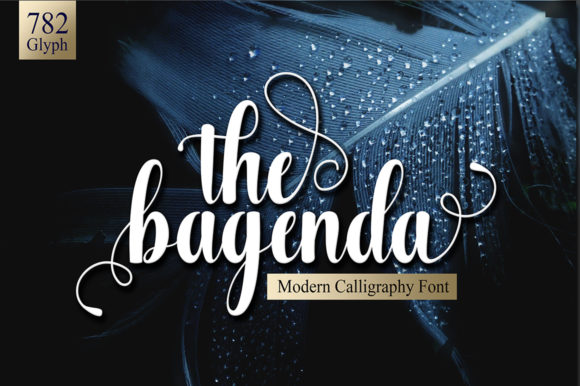
Introducing The Bagenda Font: A Journey Through Enchanting Script Calligraphy
Immerse yourself in the captivating world of The Bagenda Font, a breathtaking script creation by Imun Studio. This enchanting font exudes elegance and charm, inviting you to embark on a creative voyage where your words dance with grace and allure.
Crafted with meticulous precision, The Bagenda Font boasts a captivating blend of traditional calligraphy and modern aesthetics. Its unique forms and natural writing style evoke a sense of timeless sophistication, making it the perfect choice for a wide range of design projects.
Picture your designs adorned with the flowing strokes of The Bagenda Font. Wedding invitations shimmer with an ethereal glow, carrying your vows in a symphony of handwritten beauty. Logos and branding materials radiate a touch of timeless elegance, leaving an unforgettable impression on your audience. Social media posts and marketing campaigns ignite with an irresistible charm, attracting followers with their captivating visual appeal.
But The Bagenda Font is more than just a beautiful typeface. It's a powerful tool that unlocks your creativity and empowers you to express yourself with unparalleled flair. With its versatility and endless possibilities, The Bagenda Font becomes an extension of your imagination, allowing you to craft captivating content that resonates with your target audience.
Whether you're a seasoned designer or just starting your creative journey, The Bagenda Font is your passport to a world of enchanting possibilities. Its user-friendly format makes it accessible to all, empowering you to transform your words into captivating masterpieces.
So, surrender to the allure of The Bagenda Font and let your imagination soar. Experience the magic of handwritten artistry as your words become works of art. Embark on an enchanting journey where every stroke tells a captivating story.